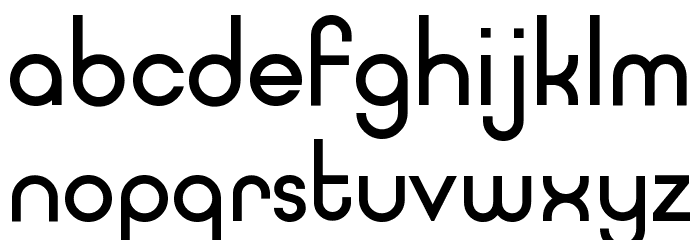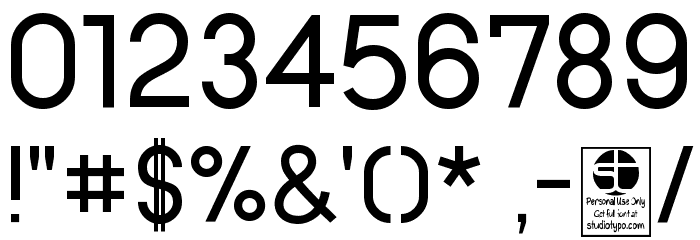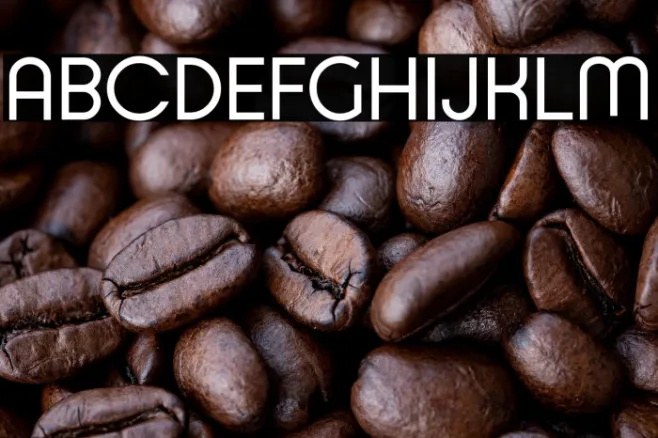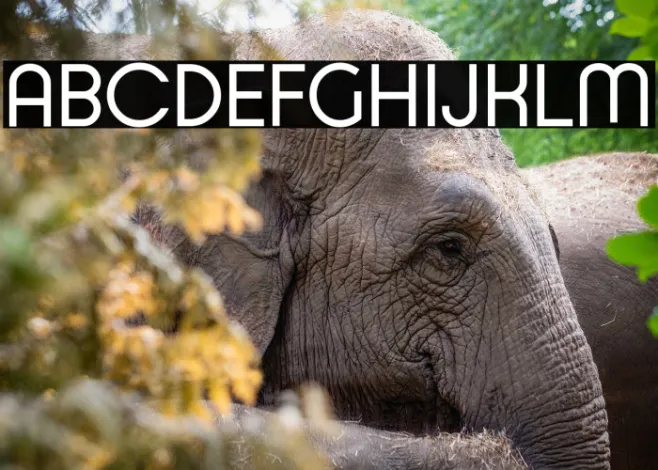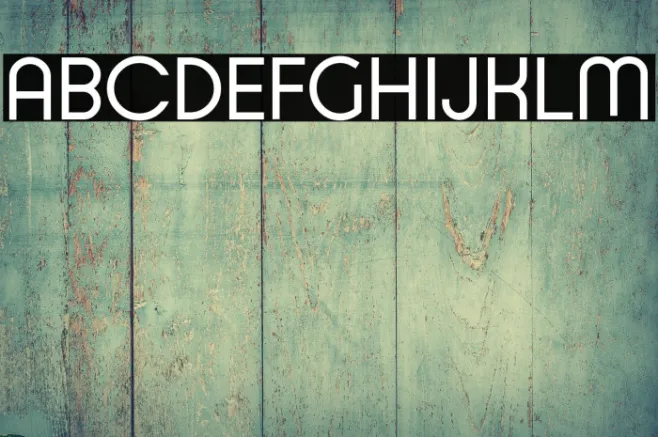
Typo Ring Demo Font
This font features a clean and modern sans-serif style with rounded edges that give it a friendly and approachable appearance. The uniform stroke width across all characters provides a consistent look, enhancing readability. The uppercase and lowercase letters are well-proportioned, with a slight geometric influence visible in the circular forms of characters like 'O' and 'C'. The numerals are clear and distinct, maintaining the same rounded aesthetic. Special characters are designed to match the overall style, ensuring cohesion throughout. This font is versatile, suitable for both digital and print media.
A modern, rounded sans-serif font with uniform stroke width and geometric influences.
- Font: Typo Ring Demo
- Proposed Projects: Ideal for branding, web design, user interfaces, and print materials where a modern and friendly look is desired.